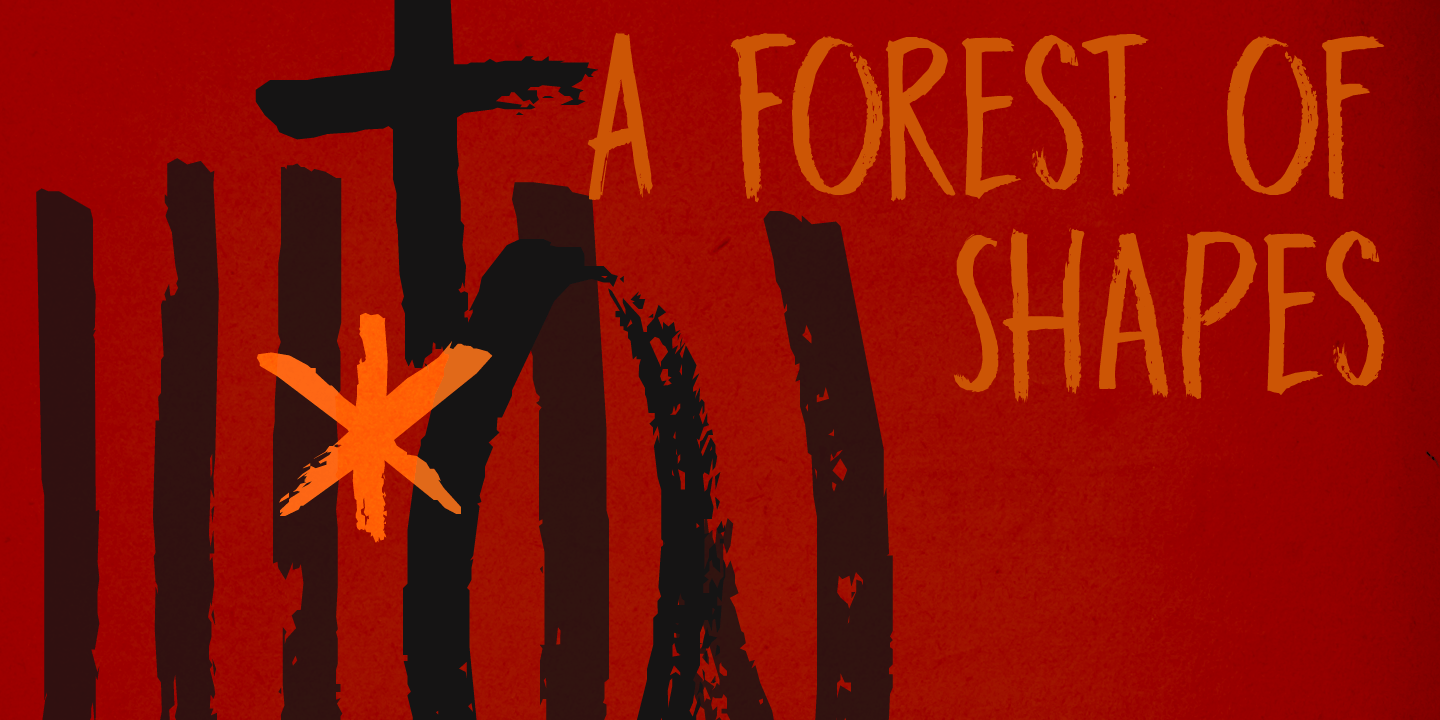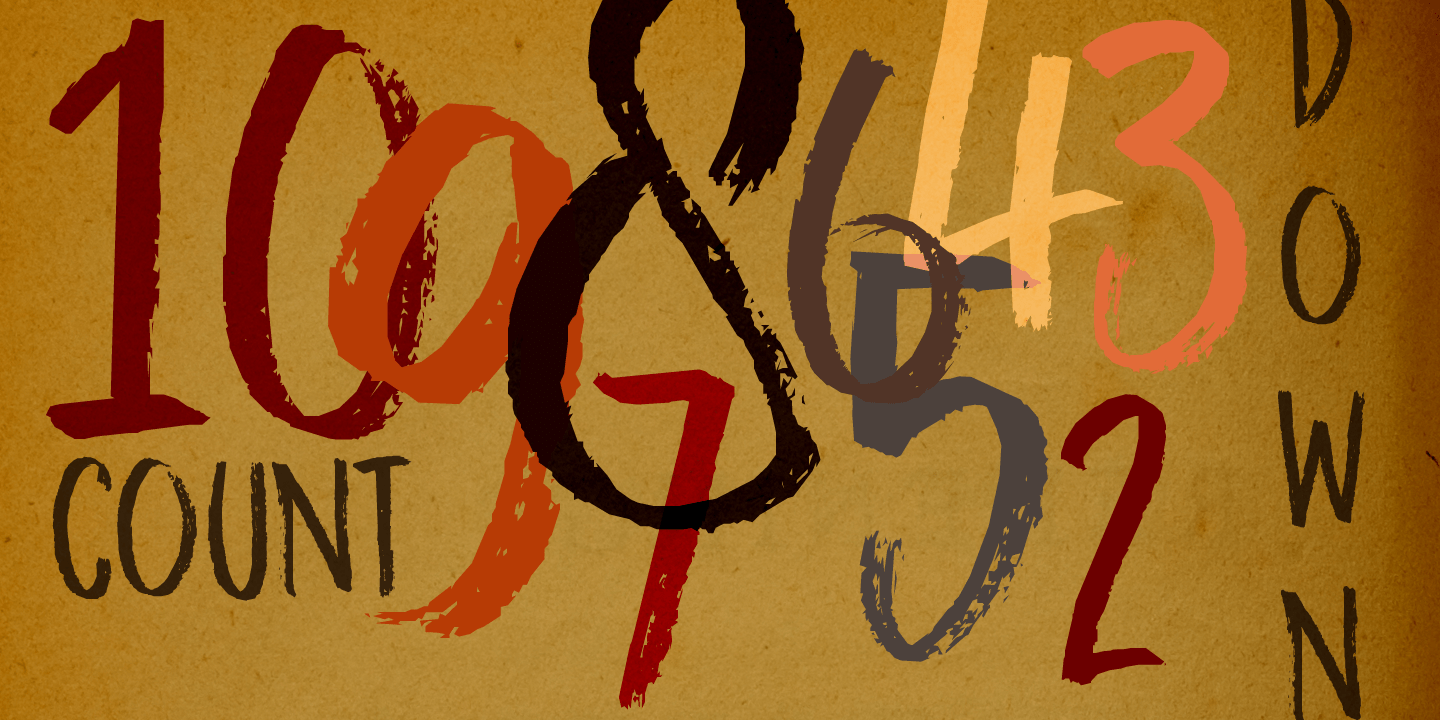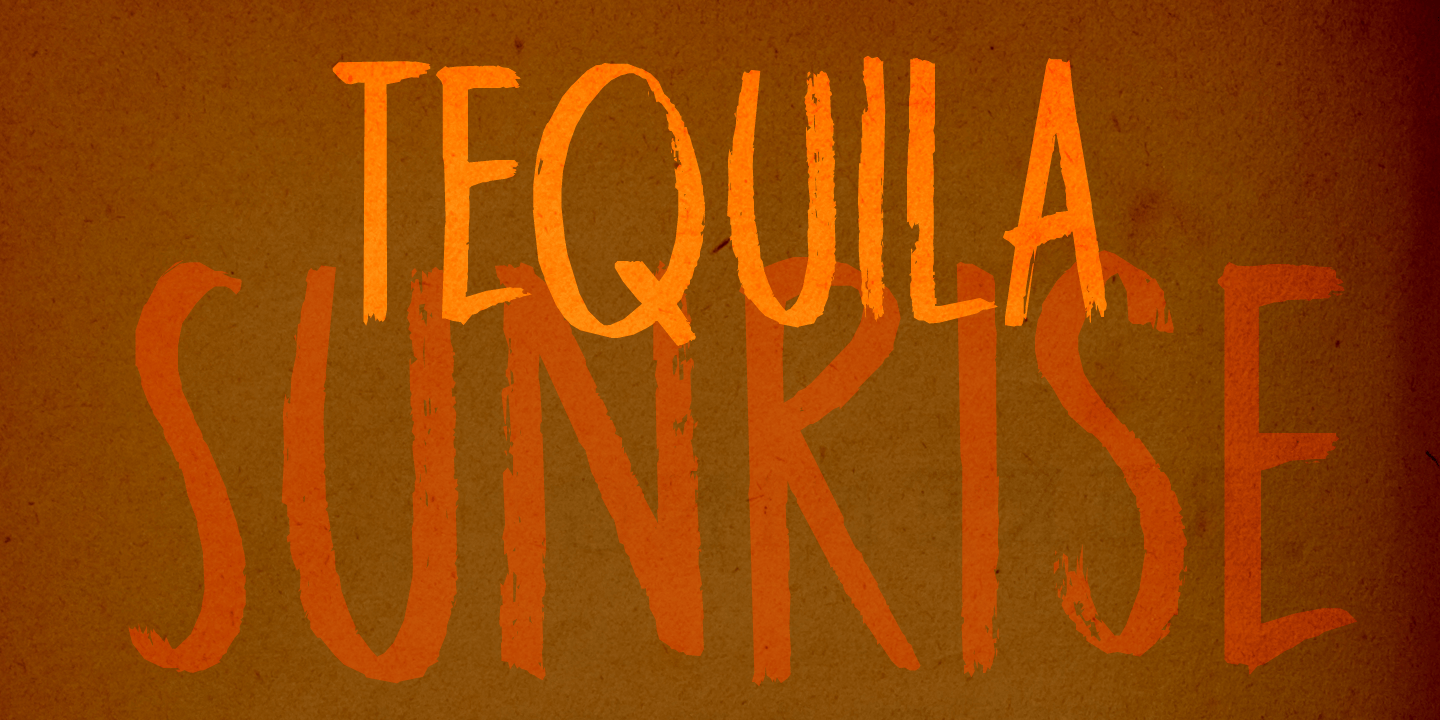
Darker Marker
Darker Marker is just what the name suggests: I found a very big fat marker in a local stationary store, bought it, came home and went to work on this font. Darker Marker is a very clear, very easy to read marker font. It is all caps, but upper and lower case differ and can be interchanged. Darth Vader would have said: ?come to the dark side? and I believe you should. Darker Marker comes preloaded with all the diacritics you need.